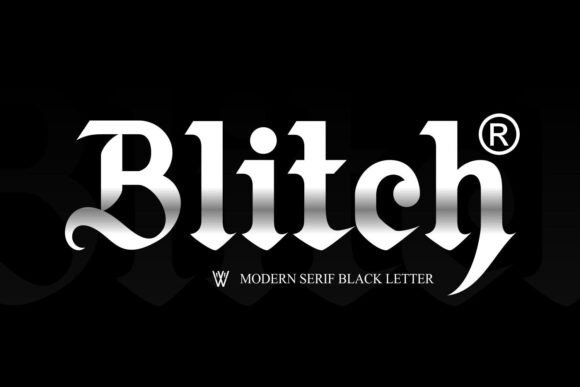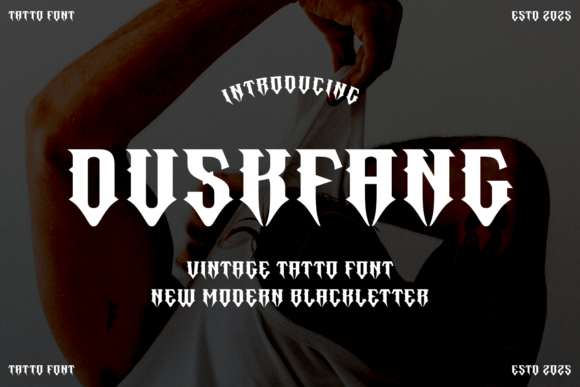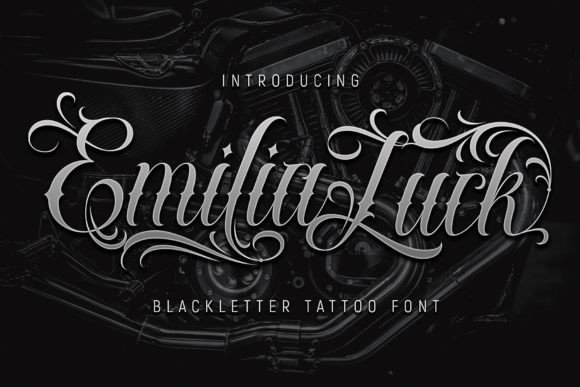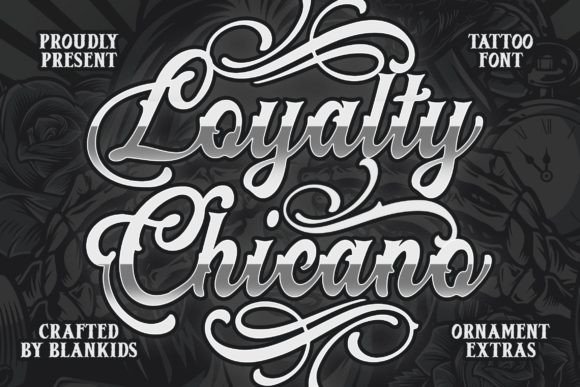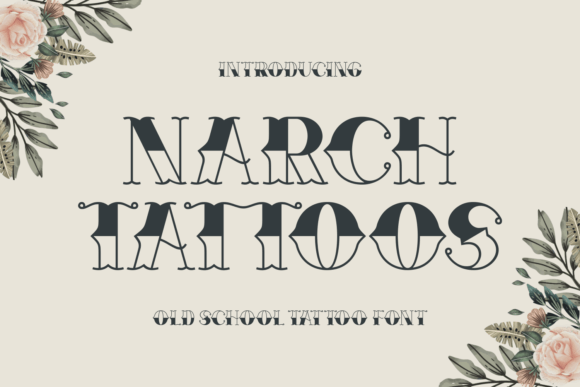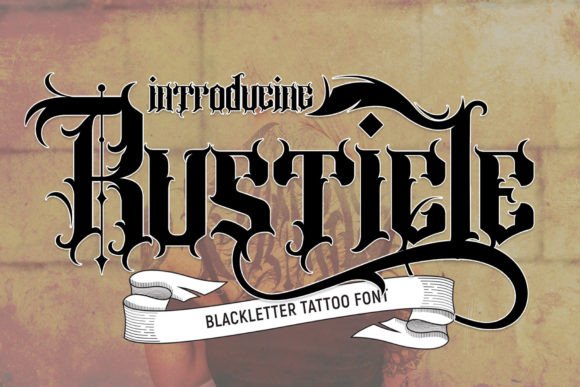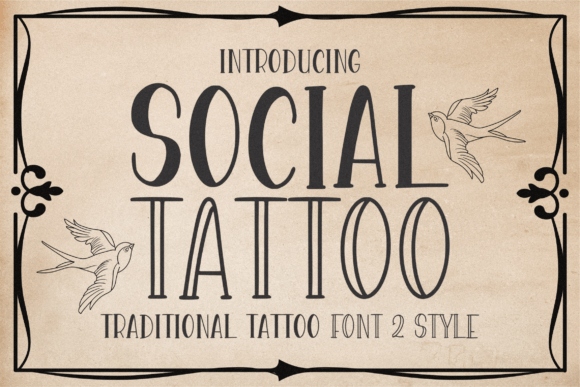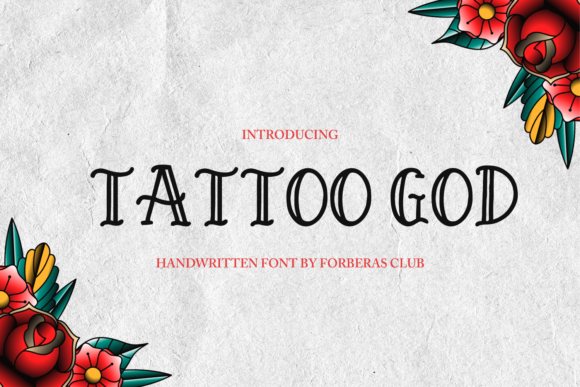
Font tattoo
Top 13 font tattoo typefaces for modern graphic designers
Selecting the right font tattoo is a high-stakes design decision where typography meets permanent artistry. As a designer, I view skin as the ultimate canvas, requiring a balance between legibility and aesthetic longevity.
Whether you are drawn to the sharp precision of blackletter or the fluid elegance of custom script, the technical details of kerning and line weight matter immensely.
In this guide, I break down how to choose a typeface that honors your vision and ages flawlessly.
Tattoo God Font
When evaluating the Tattoo God typeface, it is clear why this display font stands out in the current design landscape. It perfectly captures that “old-school” soul while maintaining the technical precision required for modern branding. From a designer’s perspective, the balanced weight and rhythmic curves make it remarkably versatile – moving beyond traditional skin art into high-end packaging and editorial layouts.
Whether you are crafting a bold magazine header or a gritty social media identity, this font tattoo style brings an authentic, hand-drawn character to digital projects. It respects the heritage of classic lettering while offering the clean lines needed for legibility across various media. It is less about following a trend and more about making a statement that feels both timeless and rebellious.
Narch Tattoos Font
The Narch Tattoos typeface is a masterclass in capturing the raw energy of the mid-century rebellious spirit. As a designer, I appreciate how its heavy weighting and uncompromising geometry translate the “bold will hold” philosophy into a digital format. This font tattoo style avoids the cluttered ornaments of modern scripts, focusing instead on the thick, uniform strokes that define traditional flash art.
It is an ideal choice for a brand identity that needs to feel anchored in history but remains legible at a glance. Whether you are building a logo for a vintage streetwear label or a high-impact poster, this font provides that rare sense of authentic grit. It doesn’t just mimic the past; it commands the space with a punchy, retro presence that resonates with the heritage of ink culture.
Black Ink Font
The Black Ink typeface represents a sophisticated evolution of the contemporary blackletter style, merging historical weight with a sharp, modern edge. In my design practice, I find that this specific font tattoo aesthetic bridges the gap between underground culture and high-end street branding perfectly. It carries a structural integrity that ensures your typography remains impactful across diverse media, from screenprinted apparel to large-format event posters.
What sets this typeface apart is its adaptability; it provides a confident, dark-art vibe without sacrificing the clarity required for professional brand identities. When you integrate this into a project, you are choosing a visual language that feels intentional and grounded. It is the kind of tool that elevates a simple layout into something with genuine presence and grit.
Duskfang Font
Duskfang is a compelling example of how gothic structures can be reimagined with a razor-sharp, modern edge. As a designer, I am drawn to the aggressive geometry and visceral energy of its letterforms, which provide a fierce bite to any composition. This font tattoo style perfectly captures a sense of dark elegance, making it an essential asset for alternative branding or streetwear projects that require a rebellious attitude.
The balance of dramatic strokes and contemporary precision ensures that the typeface remains legible while projecting an undeniable strength. It is more than just a decorative element; it is a statement of intent for designs that need to stand out with a raw, high-impact aesthetic. By integrating this into your workflow, you bring a sophisticated grit to posters or album art that standard blackletter simply cannot match.
Blitch Font
Blitch Modern Blackletter offers a refined technical approach for those of us who prioritize a seamless digital workflow. From a designer’s perspective, its compatibility with Photoshop and Procreate makes it an incredibly functional tool for sketching out intricate custom lettering or developing high-end logos. This font tattoo style captures the meticulous craftsmanship of manual ink work while providing the flexibility of a modern typeface.
The versatility of its forms allows you to experiment with unique layouts that remain cohesive and professional. It is about more than just aesthetics; it is about having a reliable asset that translates the soul of tattoo culture into a polished, production-ready format. Whether you are working on a personalized commission or a broader branding project, Blitch delivers a distinct, authoritative presence that feels both custom and contemporary.
Choosing the right font tattoo is about more than aesthetics; it is about finding a typeface that captures the soul of your brand. Whether you prioritize old-school grit or modern precision, these professional tools will elevate your creative vision.